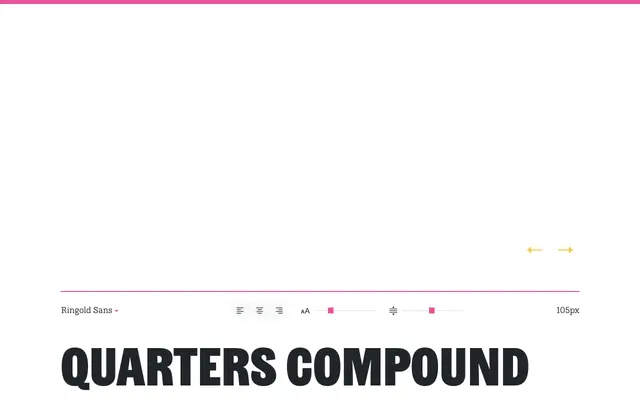
Ringold
Bijou Type · 2023
A five-style display family designed for tight headline setting, where each style shares the same proportions but shifts in personality from nostalgic Clarendon to clean sans.
Five stylistically distinct subfamilies share identical proportions and density, allowing designers to swap between them without disrupting layout rhythm. The range moves from the whimsically nostalgic Ringold Clarendon through a sharp slab, an architectural gym-style variant, a warm sans and a softer rounded cut. Each style supports approximately 505 languages, making the family unusually broad in its script coverage for a display release.
Ringold is a display type family spanning five distinct styles from slab and Clarendon-inspired serifs to a geometric gym-style slab and a sans variant, all sharing the same proportions and designed for tight headline setting.